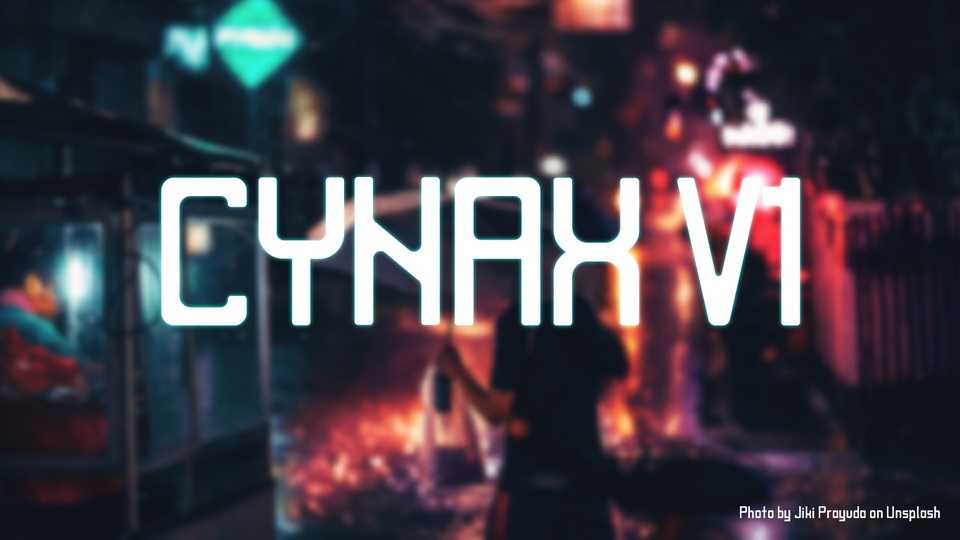
Download CYNAX V1 font, a display typeface inspired by dystopian and synthwave theme. With pretty much square and a bit rounded edge, CYNAX V1 font could be use in headline design, poster and also magazine.